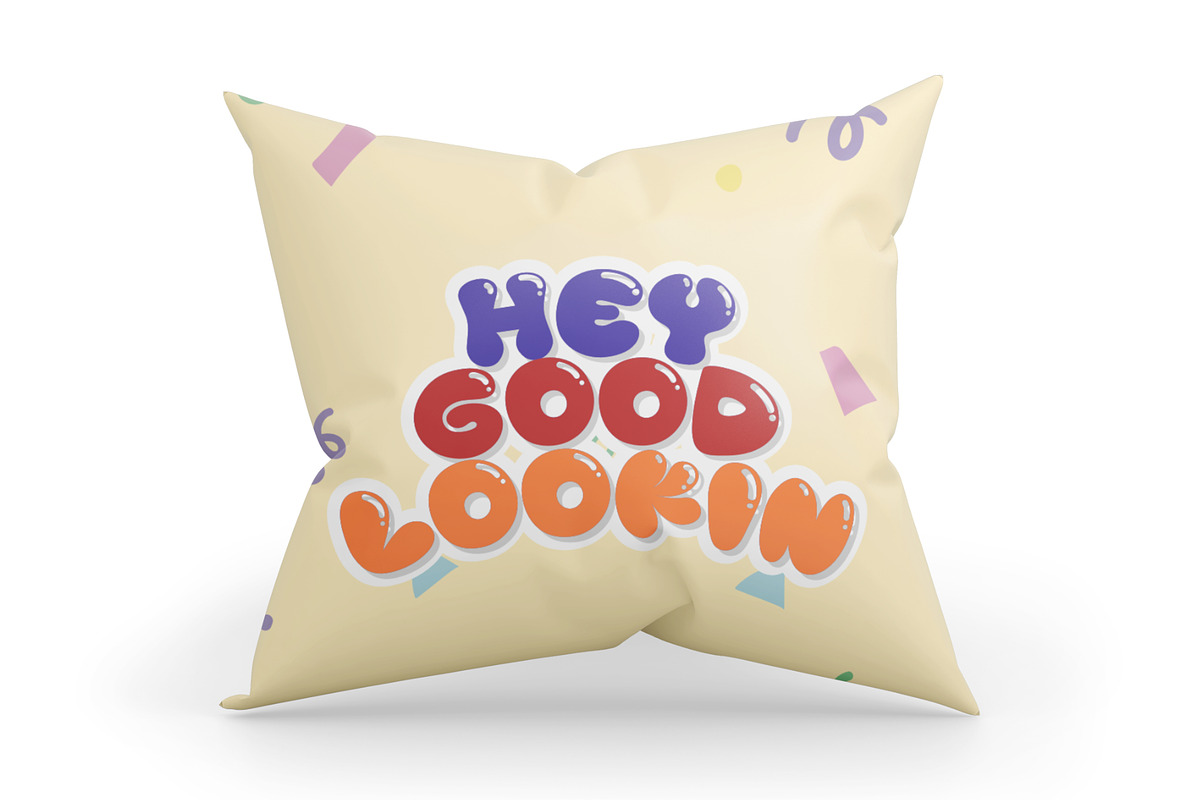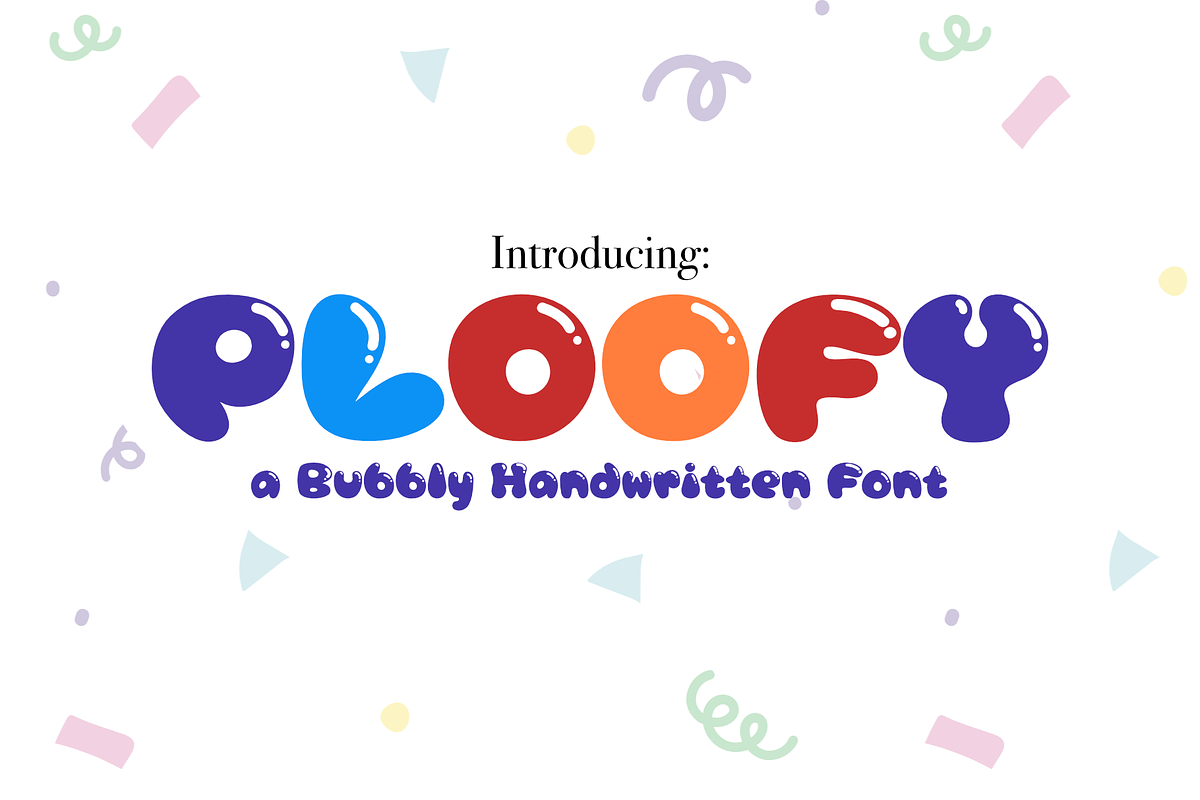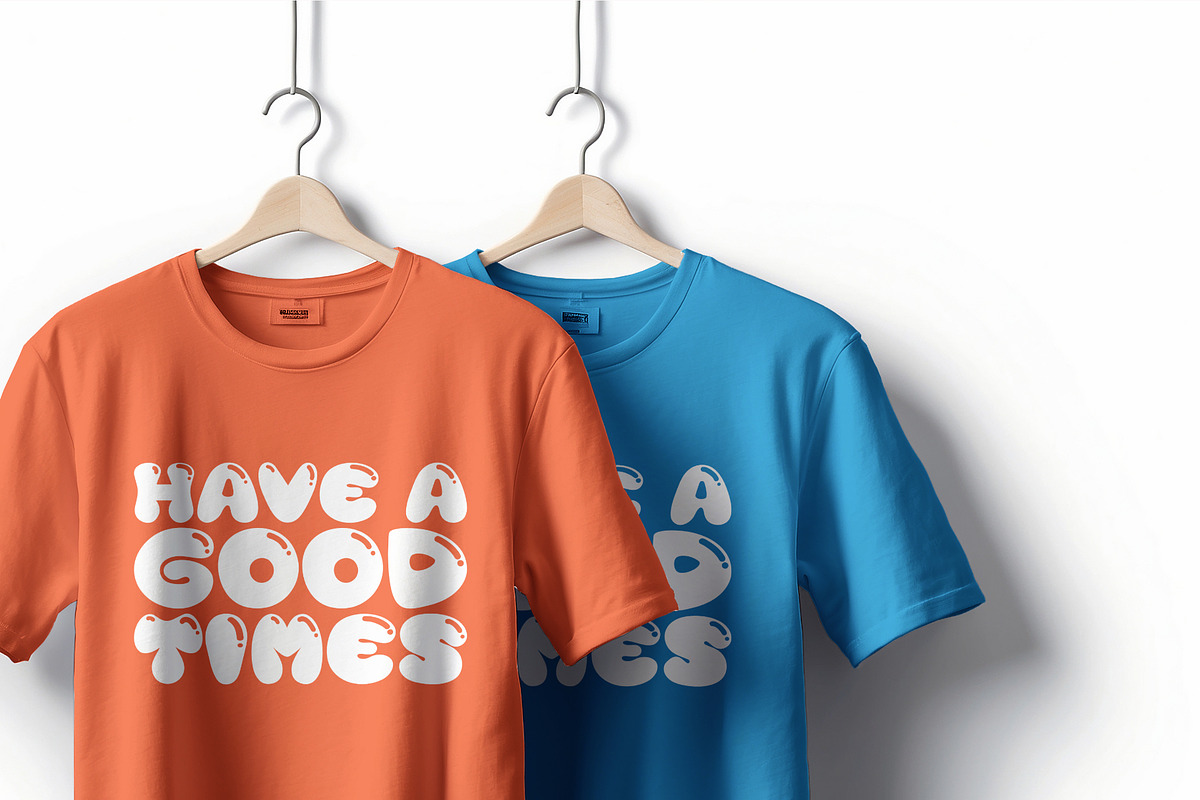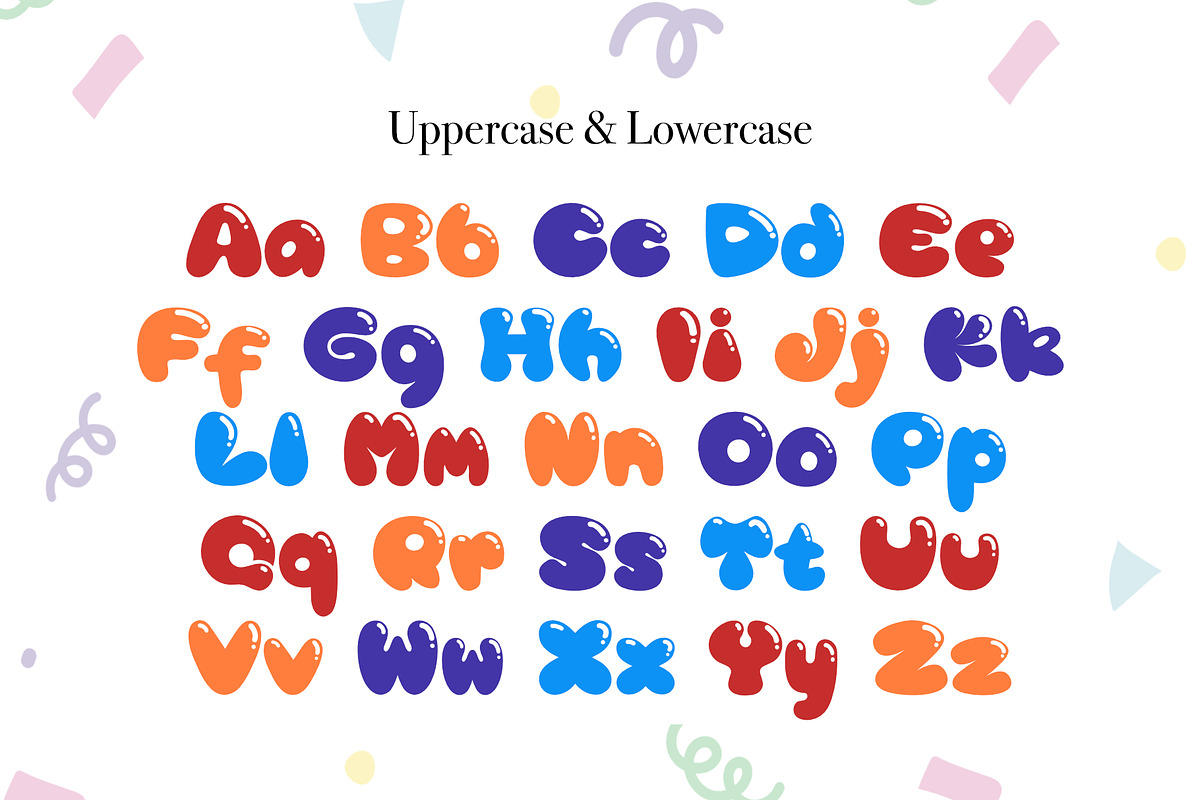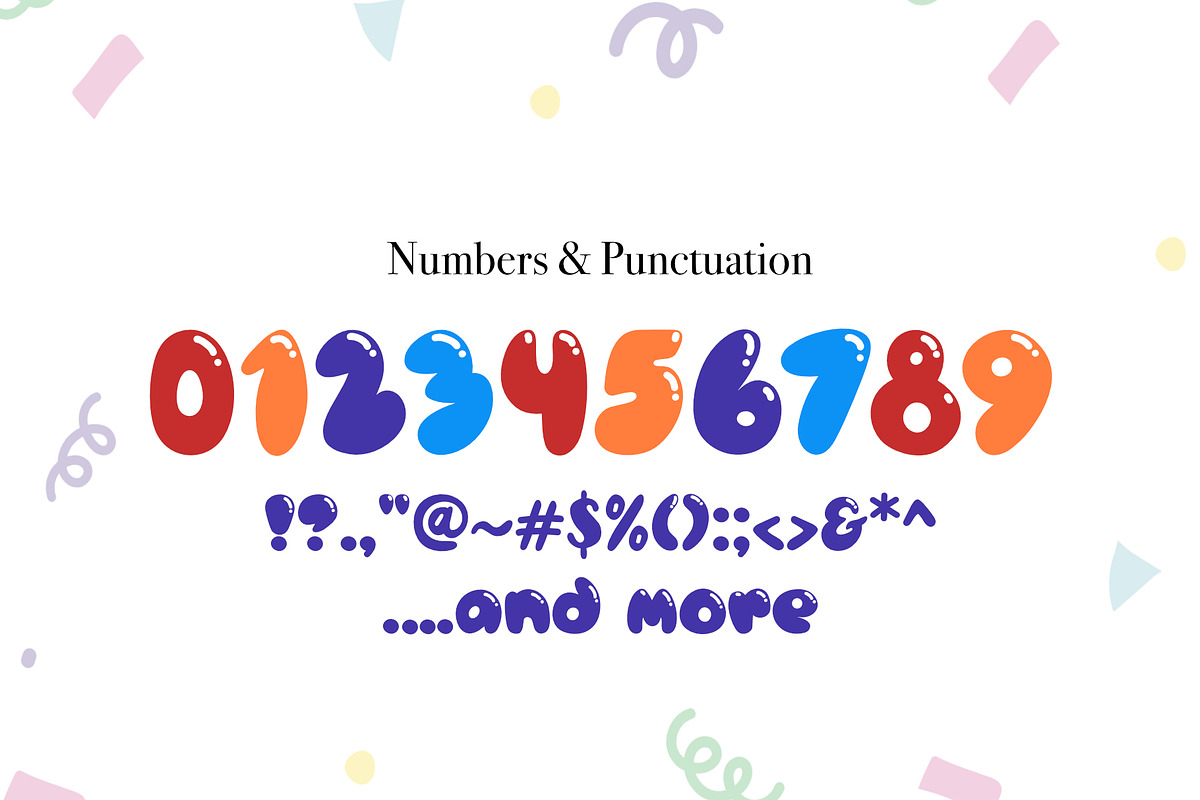
PLOOFY – Cute Bubble Handwritten Font
Introducing PLOOFY, a cute bubble handwritten font filled with fun, happiness, and playful personality.
Designed with soft rounded shapes and glossy bubble-inspired letterforms, Ploofy instantly brings cheerful energy to every project. Its adorable appearance makes it perfect for children's products, party decorations, classroom materials, toy branding, stickers, apparel, and colorful social media designs.
Whether you're creating birthday invitations, Cricut crafts, kids' t-shirts, nursery decorations, YouTube thumbnails, or playful logos, Ploofy adds a joyful and friendly touch that everyone will love.
Its bold, rounded style keeps every word easy to read while making your designs stand out with a cute and vibrant personality.
Uppercase Letters
Lowercase Letters
Symbols
Cute Bubble Style
Handwritten Display Font
Bold Rounded Characters
Fun & Playful Design
Easy to Read
Ploofy is the perfect choice for designers, teachers, crafters, and creative entrepreneurs looking for a font that brings joy, warmth, and imagination into every design. From children's merchandise to printable crafts and colorful branding, Ploofy makes every project feel fun and unforgettable.